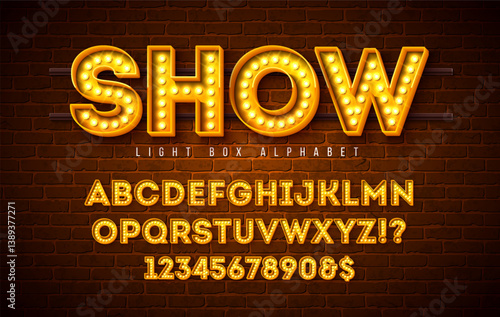
Light Bulb Alphabet with Yellow Frame Box and Shadow on Vintage Brick Wall Background. Glowing Retro Vector Font Collection with Shiny Bright Lights. ABC and Number Design for Casino, Night Club or